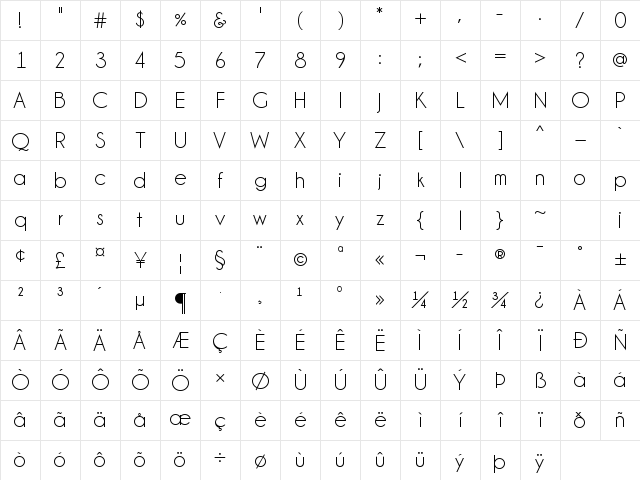
Champagne & Limousines Regular
Design Context for Champagne & Limousines
Champagne & Limousines is a composed and adaptable typeface that performs quietly and consistently across a wide range of design contexts.
Pro Tip: Use Champagne & Limousines in both headline and body roles to test its range before committing to a single application.